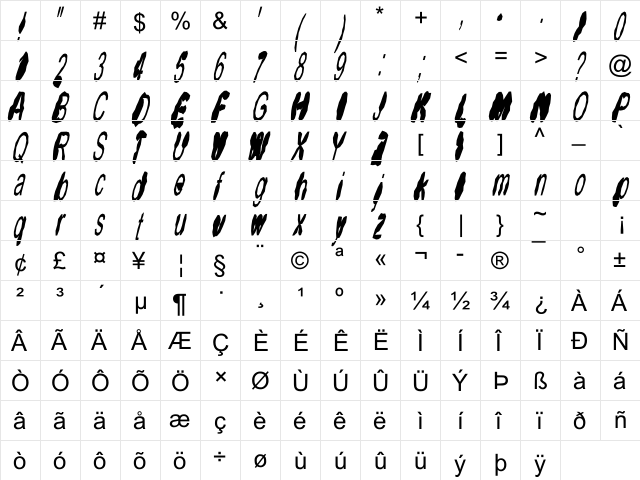
FUD SUPREME ITALIC Regular
Design Context for FUD SUPREME ITALIC Typeface
FUD SUPREME ITALIC is a composed and adaptable typeface that performs quietly and consistently across a wide range of design contexts. Its italic angle brings a sense of urgency and motion to the letterforms.
Pro Tip: Use FUD SUPREME ITALIC for emphasis, pull quotes, and subheadings where its slanted energy can add rhythm to the layout.